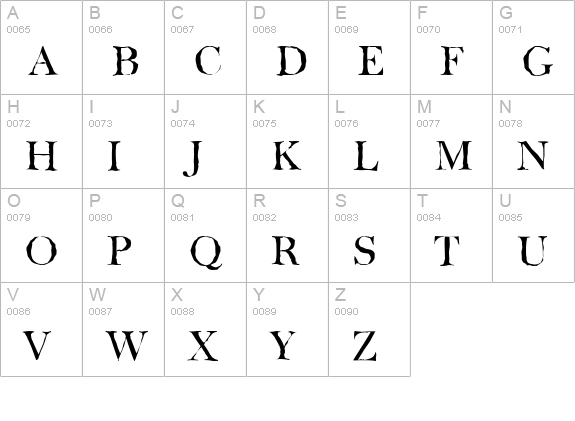
BaskervilleAntique-Regular is the standard, neutral variant in the BaskervilleAntique typeface family \xE2\x80\x94 well suited to general body text, paragraphs, and standard typographic work.
BaskervilleAntique-Regular is a timeless and elegant font that exudes sophistication and class. Its classic serif style and clean lines make it perfect for a wide range of design projects, from formal invitations to business documents. The font's graceful curves and sturdy serifs give it a sense of authority and refinement, making it a popular choice for luxury brands and high-end products. What's even better is that BaskervilleAntique-Regular is available for free download at FontsMarket.com. This means you can easily access this exquisite font and use it in your projects without any cost. Whether you're a designer looking to elevate your work or a business owner in need of a polished look for your marketing materials, BaskervilleAntique-Regular is sure to impress with its timeless appeal and effortless charm. Download it now and add a touch of sophistication to your designs.